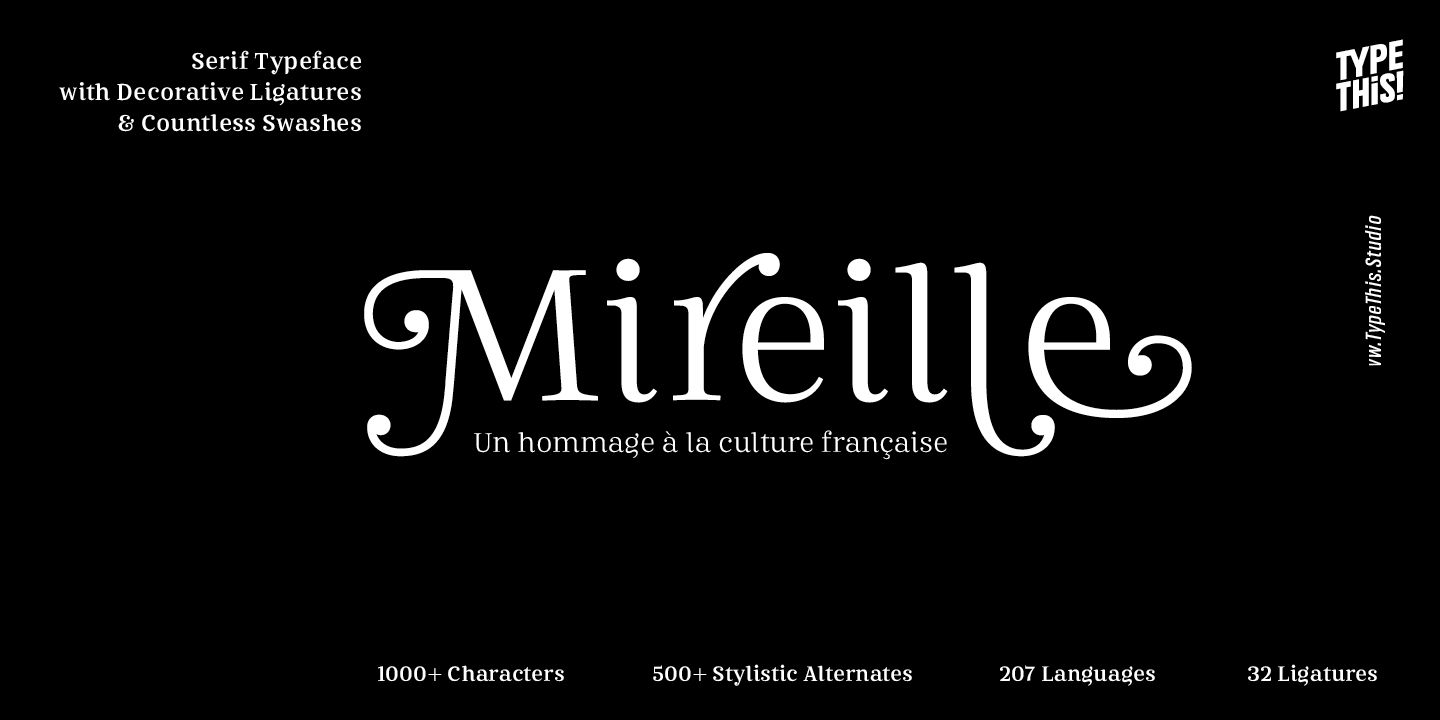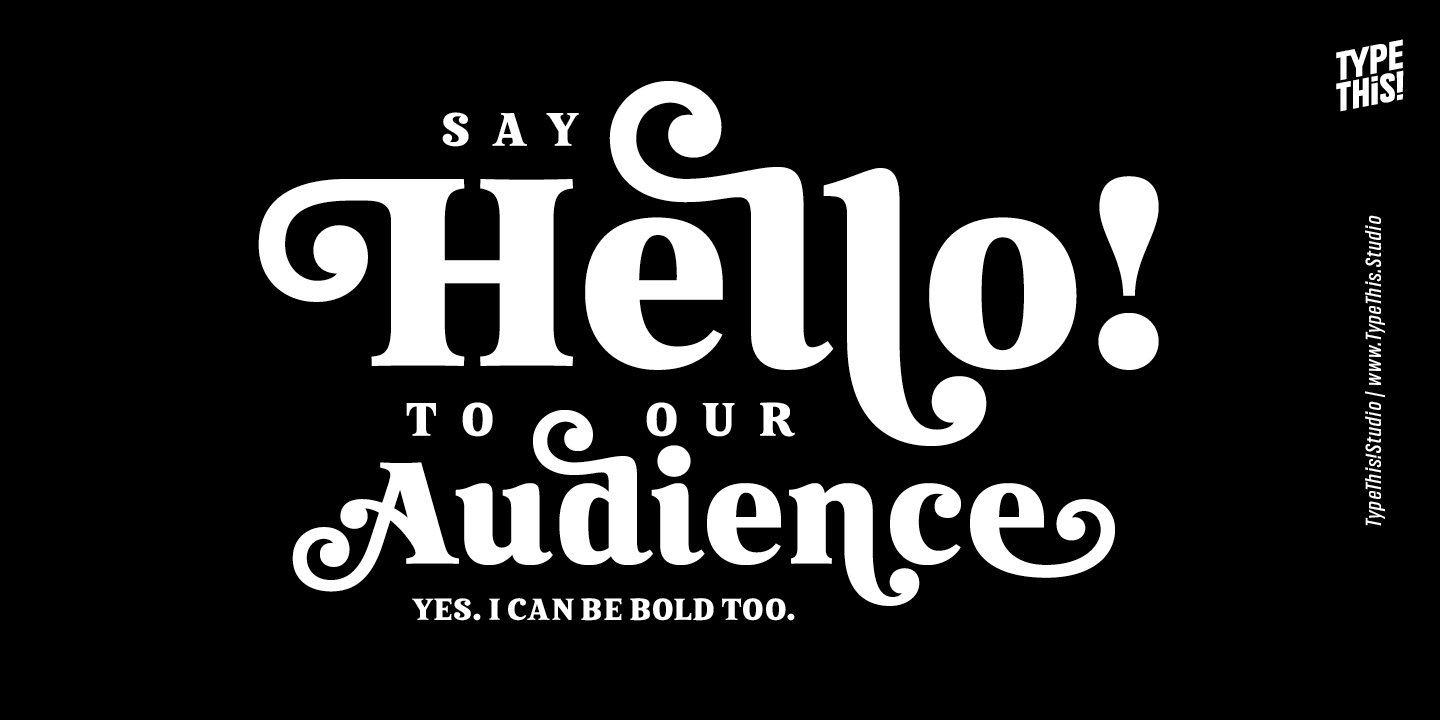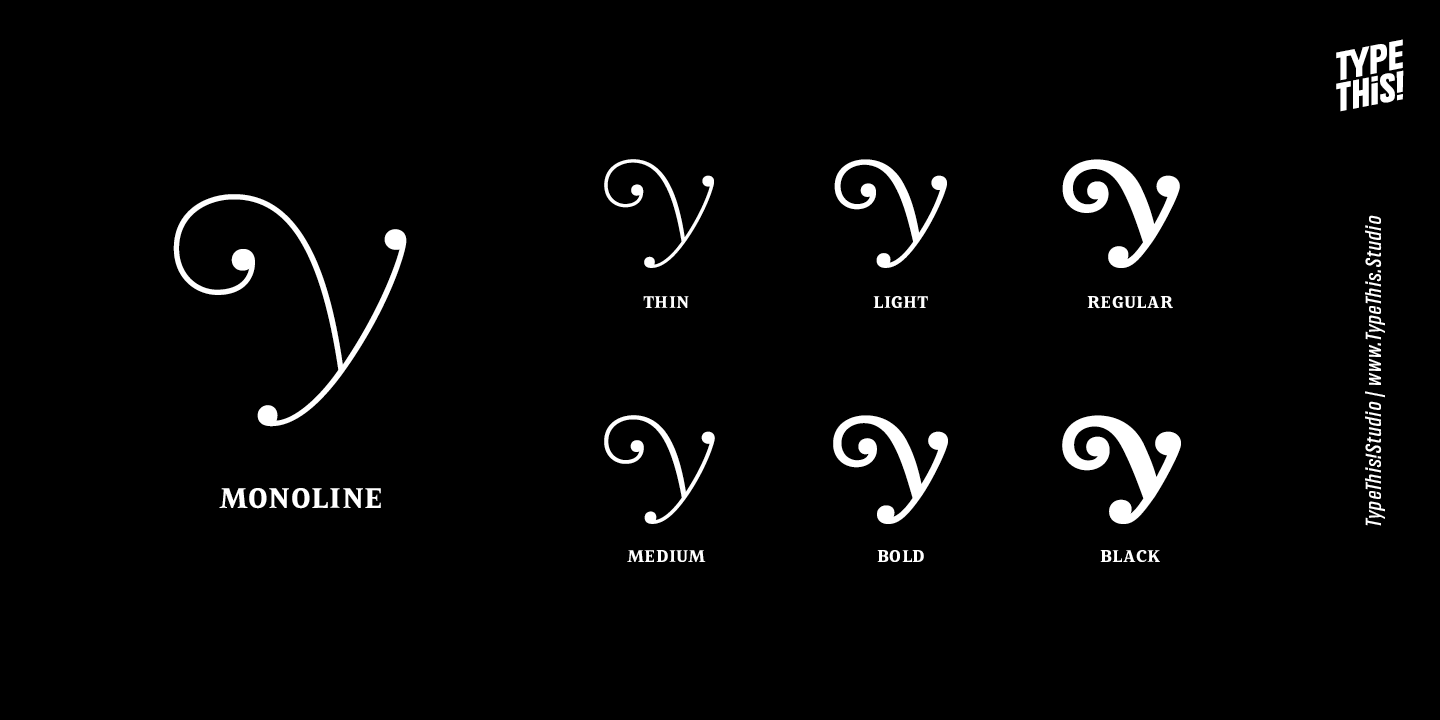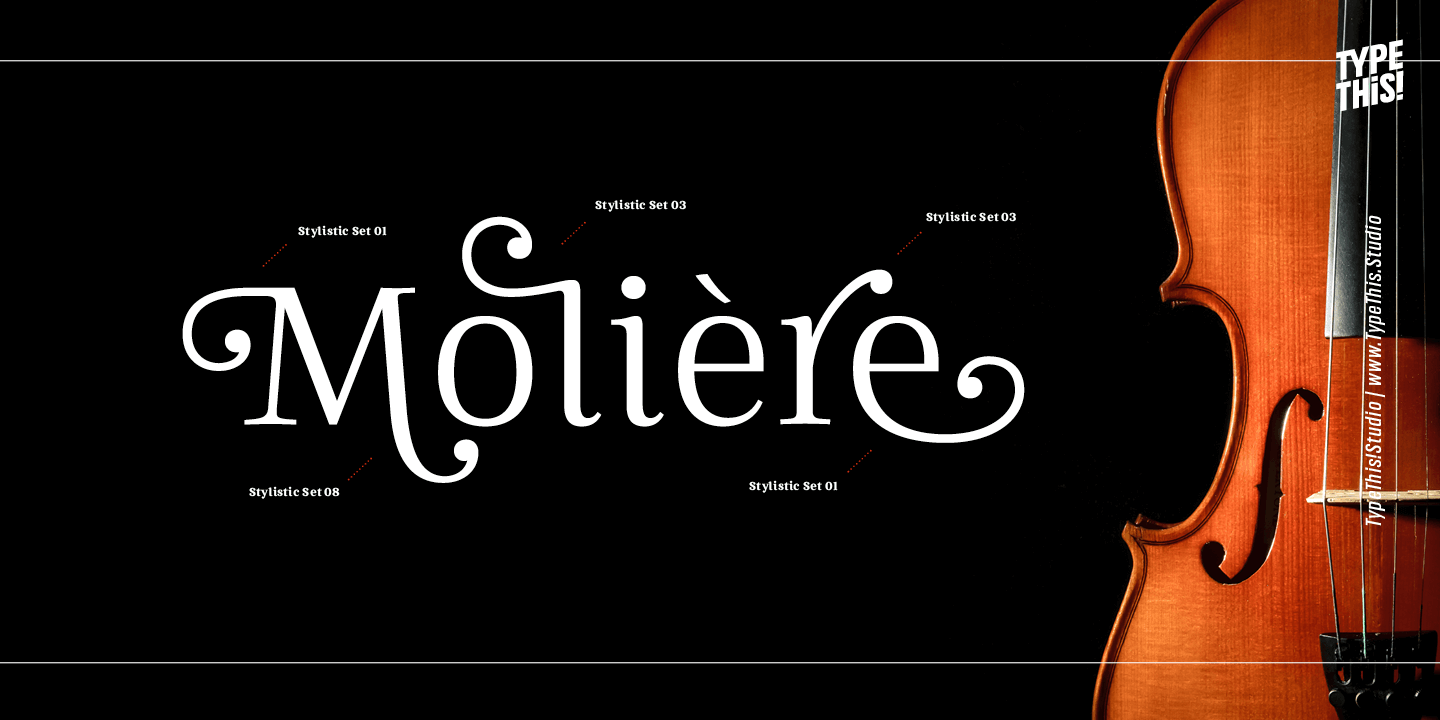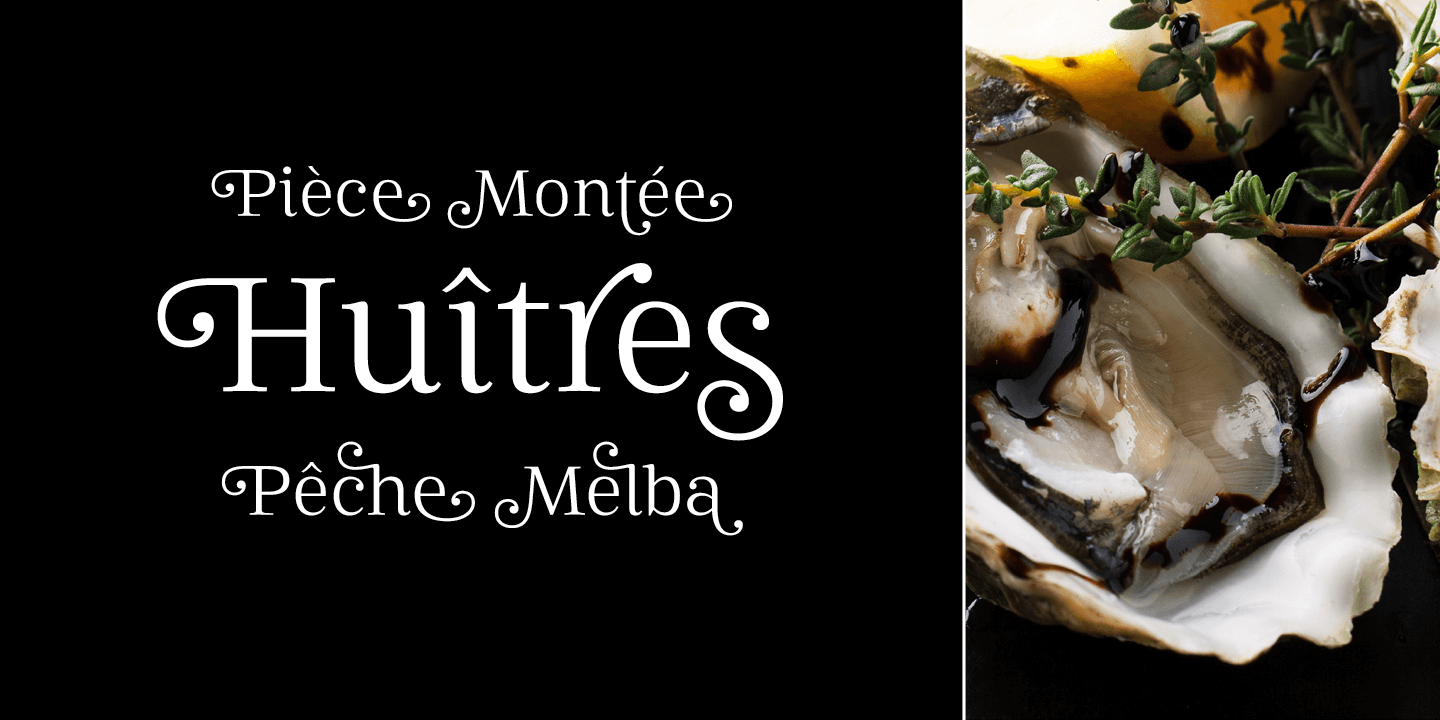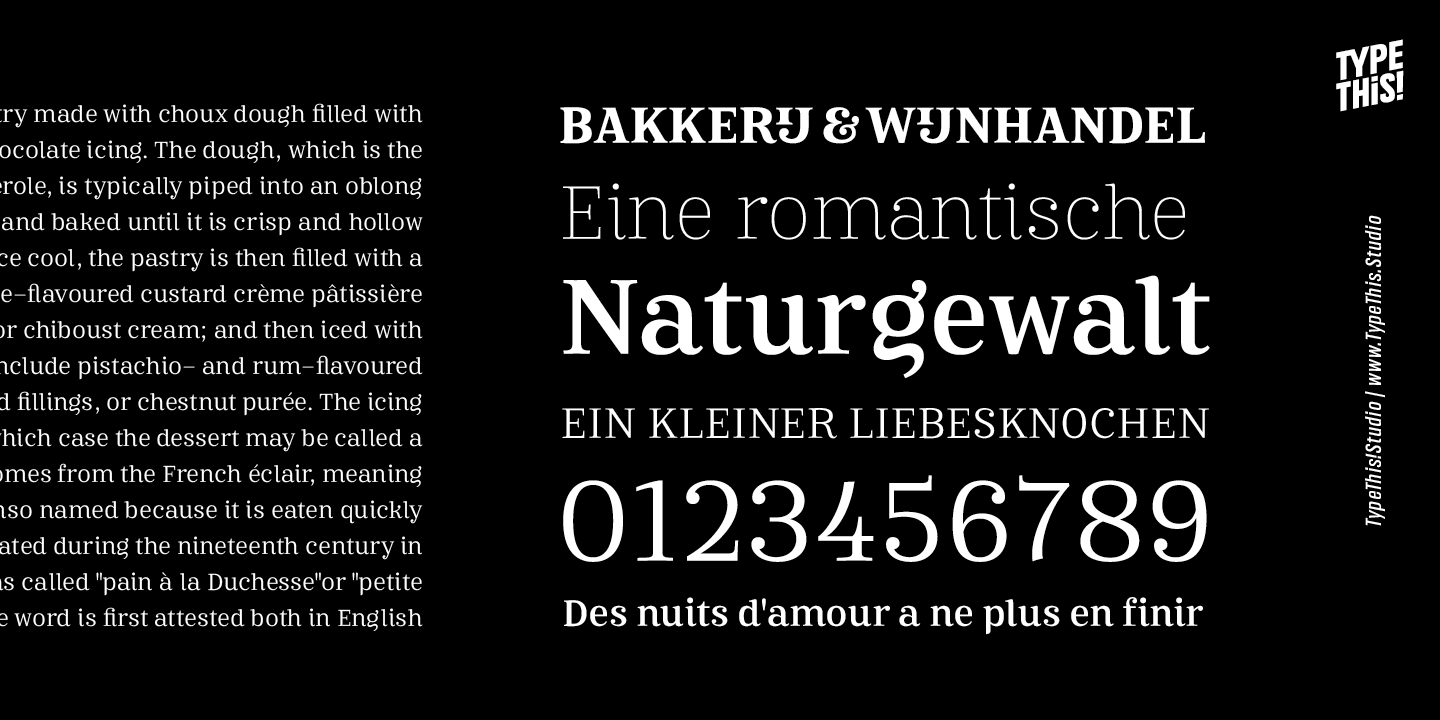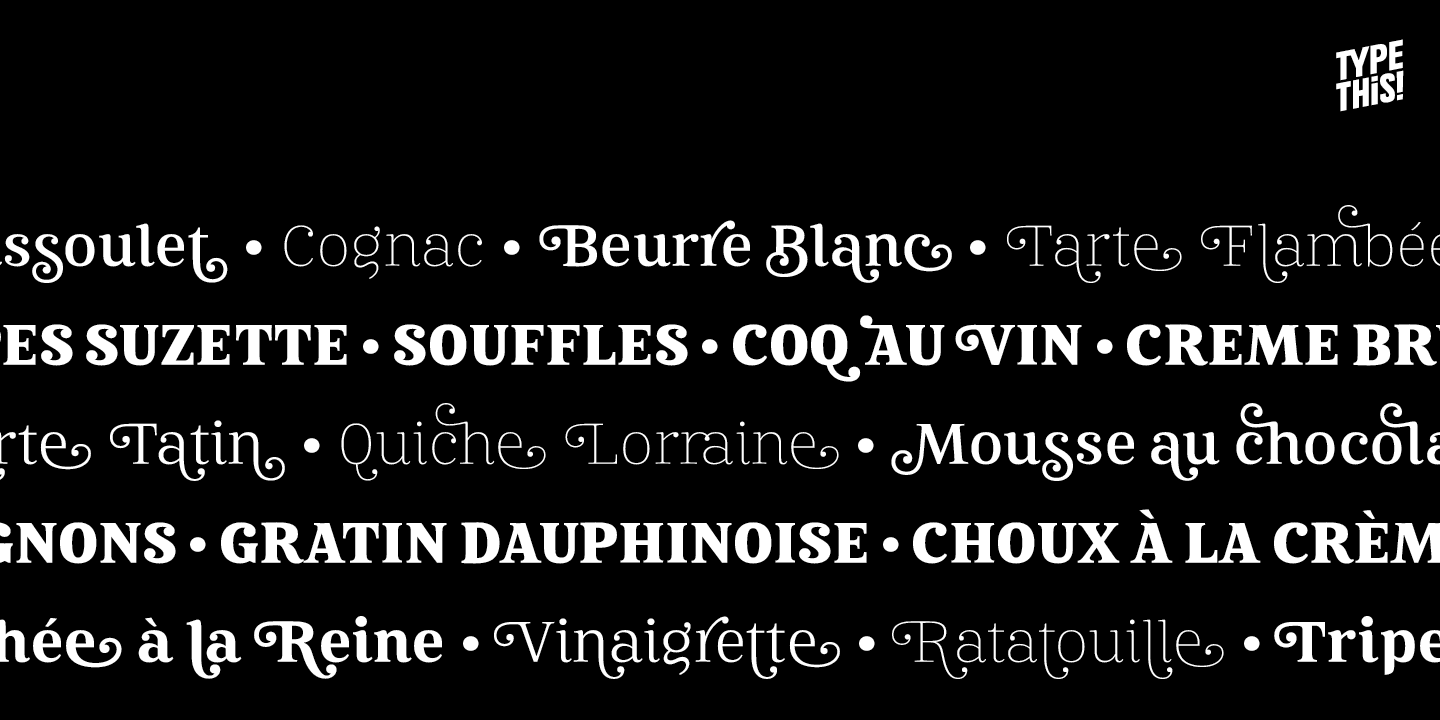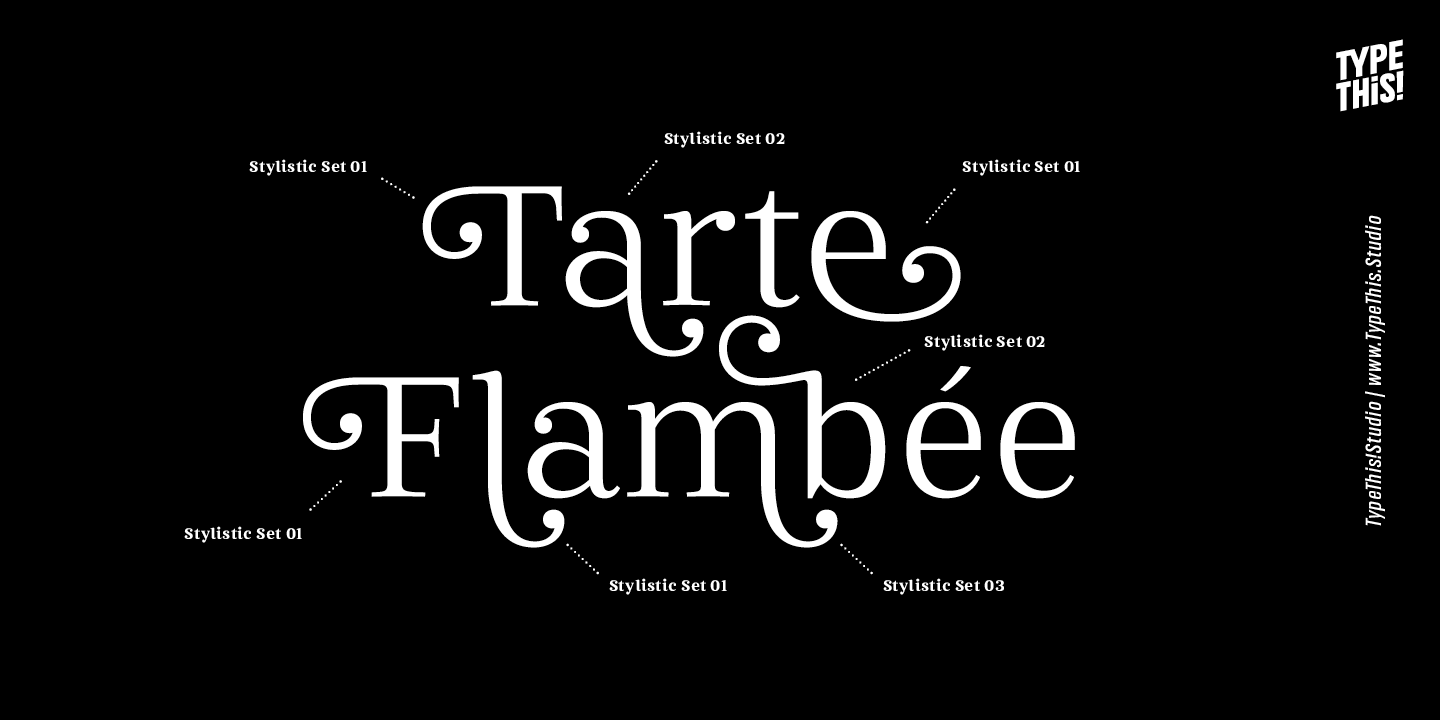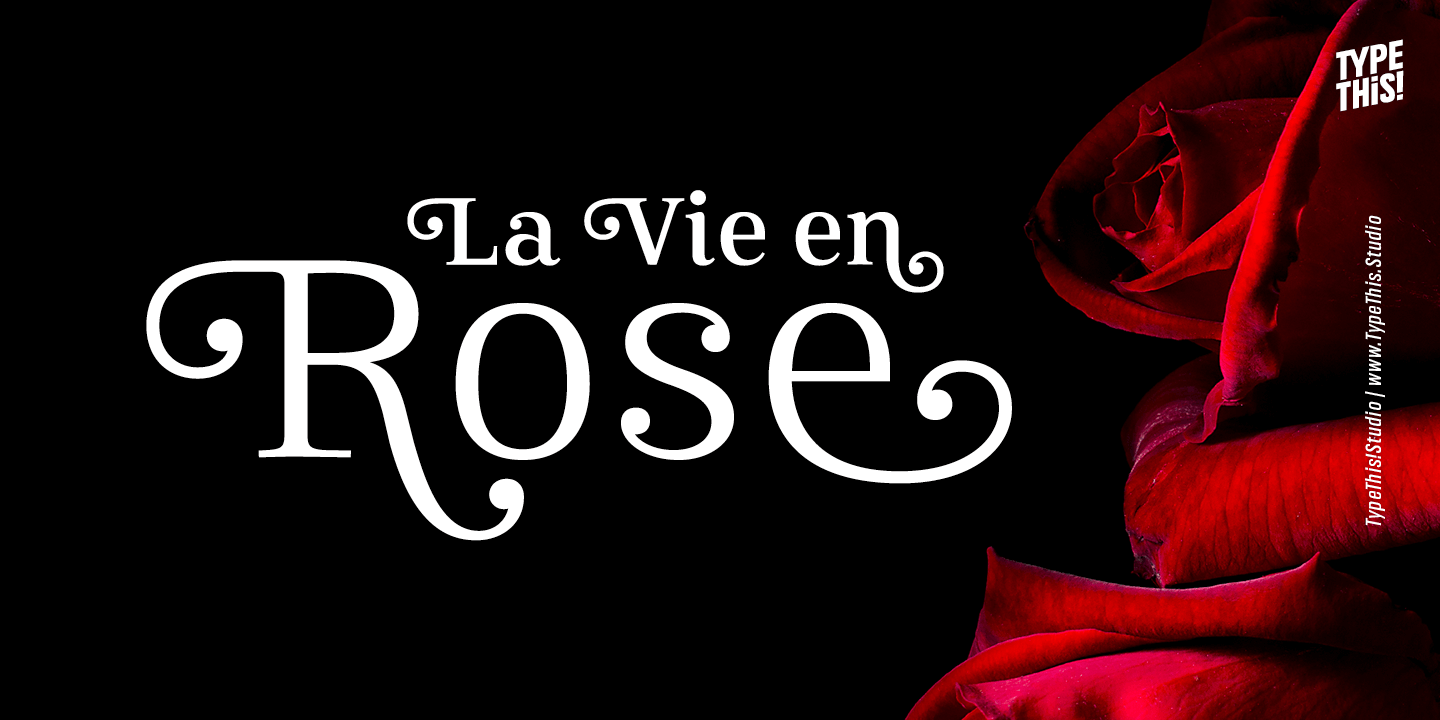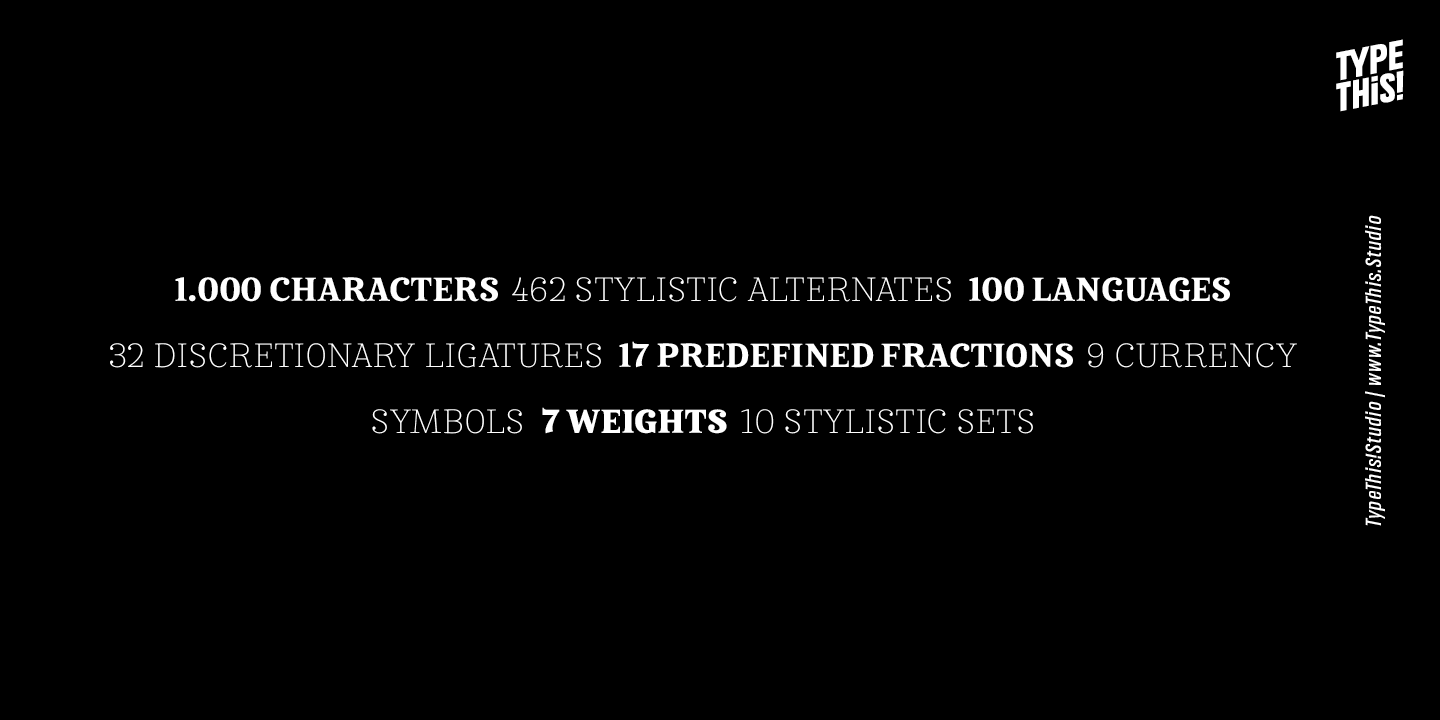
Mireille
Font Family by TypeThis!Studio
Mireille is a serif family with a refined, high-contrast look that feels both classic and current. Its sharp serifs, balanced proportions, and decorative touches give it a sophisticated presence, while the tall x-height and readable structure help it stay clear and composed across a range of applications.
With 7 styles included—Black, Bold, Medium, Regular, Light, Thin, and Monoline—this family gives designers room to move from delicate, elegant settings to heavier, more commanding headlines. The overall tone blends modern serif polish with hints of traditional book typography and a subtle blackletter influence.
Designed by Anita J for TypeThis!Studio, Mireille is well suited to branding, editorial layouts, packaging, invitations, posters, and other display-driven work where you want a formal, stylish voice with strong readability.